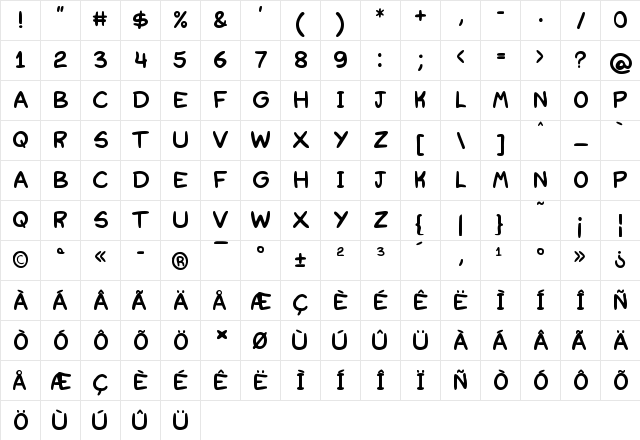
Redkost Comic Regular
Design Context for Redkost Comic Typeface
Redkost Comic trades formality for fun, with bouncy, characterful letterforms that bring warmth and energy to any project.
Font Pairing: Pairs well with a rounded or humanist sans for body copy, maintaining the friendly tone without relying on Redkost Comic to carry extended reading.
Pro Tip: Use Redkost Comic at larger display sizes where its expressive character can land. Pair with a clean, simple sans for body copy to maintain readability.